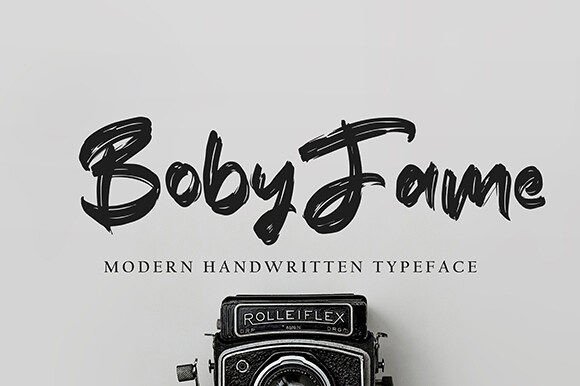
Bobyfame Font: Elevate Your Designs with Elegance and Sophistication
In the world of typography, a font can make or break a design. It’s the perfect blend of style, elegance, and personality that transforms a simple project into a masterpiece. If you’re on the hunt for a font that exudes class, sophistication, and a touch of modernity, look no further than the Bobyfame Font. This exquisite handwritten font is a game-changer, designed to capture your heart and take your projects to new heights.
The Essence of Bobyfame Font
Boby Fame is not just any font; it’s a beautifully crafted handwritten typeface that strikes the perfect balance between traditional calligraphic influences and contemporary flair. Its classy, elegant feel makes it an ideal choice for designers and crafters looking to add a touch of sophistication to their work. Whether you’re working on a branding project, a wedding invitation, or a packaging design, Bobyfame Font is sure to impress.
What Makes Bobyfame Font Stand Out?
- Unique Handwritten Style: Bobyfame Font boasts a unique handwritten style that sets it apart from other fonts. Its elegant strokes and beautiful ligatures give it a personal touch, making your designs stand out.
- Classy Calligraphic Influences: The font’s calligraphic roots are evident in its flowing lines and classic feel. It brings a level of sophistication and refinement to any project.
- Contemporary and Fresh: Despite its classic influences, Bobyfame Font feels modern and fresh. It’s perfect for designers who want to create something timeless yet current.
- Versatility: This font is incredibly versatile, suitable for a wide range of projects from digital designs to print materials.
Why Fall in Love with Bobyfame Font?
Bobyfame Font is more than just a typeface; it’s a design companion that can elevate your work to the highest levels. Here are a few reasons why you’ll fall in love with it:
- Ease of Use: Bobyfame Font is easy to use, even for those who are new to design. Its clear and legible style ensures that your message is conveyed effectively.
- Emotional Connection: The font’s elegant and personal feel helps create an emotional connection with your audience, making your designs more impactful.
- Time-Saving: With Bobyfame Font, you can achieve professional-looking results in less time. Its high-quality design saves you the hassle of creating custom typography from scratch.
How to Use Bobyfame Font in Your Projects
Integrating Bobyfame Font into your projects is straightforward. Here are some ideas to get you started:
- Branding and Logos: Use Bobyfame Font to create elegant logos and brand identities that reflect sophistication and class.
- Wedding and Event Invitations: Add a touch of romance and elegance to your wedding or event invitations with this beautiful font.
- Packaging Design: Elevate your product packaging with Bobyfame Font, making your brand stand out on store shelves.
- Digital Designs: From social media graphics to website headers, Bobyfame Font can enhance your digital designs with its unique style.
Bobyfame Font is a stunning handwritten typeface that brings a perfect blend of elegance, sophistication, and modernity to your designs. Its classy calligraphic influences, combined with a fresh and contemporary feel, make it an excellent choice for designers and crafters looking to create impactful and beautiful projects. Whether you’re working on branding, invitations, packaging, or digital designs, Bobyfame Font is sure to become your new favorite. So, fall in love with Bobyfame Font and take your designs to the highest levels!